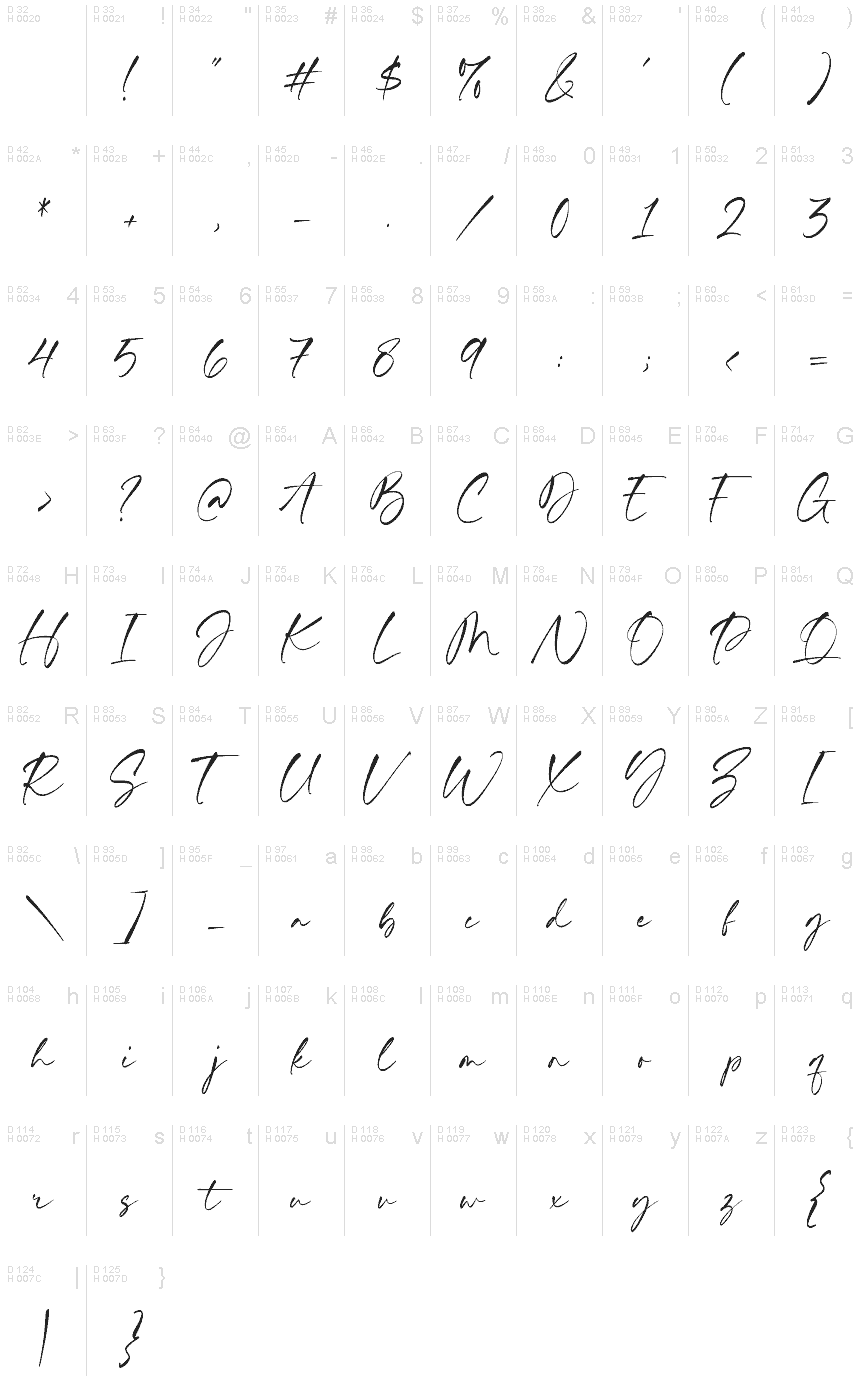
Richard Hampton
Richard Hampton font by Timur Type is an elegant handwritten font with a light, expressive nature. Displaying intricate Latin-shaped lines, it combines sophistication with a modern appeal. Subtle strokes and exquisite detailing make Richard Hampton a distinctive option when aiming to add a delicate personal touch to your designs.
The Richard Hampton font also offers multilingual support.
Features of the Richard Hampton font include a full set of standard alphabet characters and punctuation.